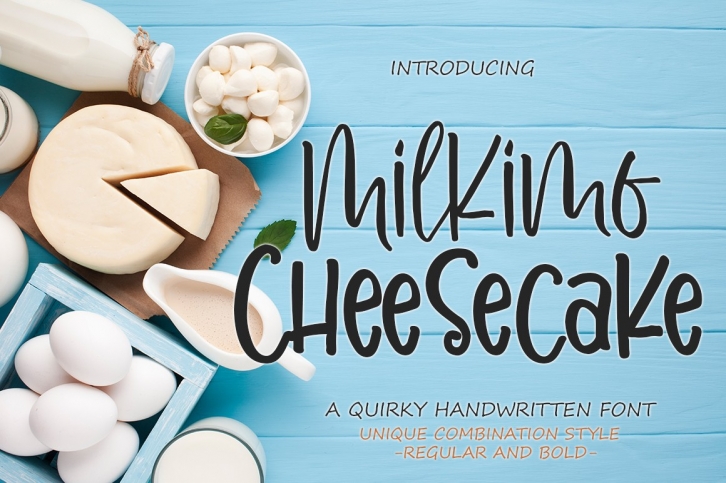
Milkimo Cheesecake Quirky Handwritten is a beautiful font that was designed by Delisha Design. It's a great choice for designers and creatives who need such a font. It was released on April 11, 2020 and the file size is 12.33 MB. Milkimo Cheesecake Quirky Handwritten may give a more youthful, expressive and casual look to your project. It is a very beautiful, refined, elegant, and high-quality font.